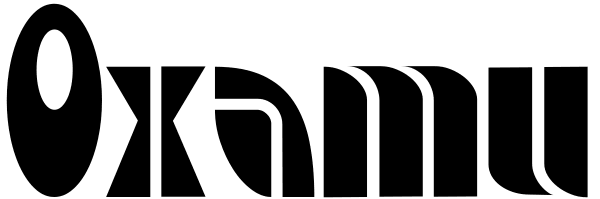
Oxamu
Oxamu is a contemporary geometric font that sacrifices a degree of readability in order to create interesting and provocative letter forms. Suggestions for use: - headlines - greeting cards - clothing tags - trend-setting magazine pages...